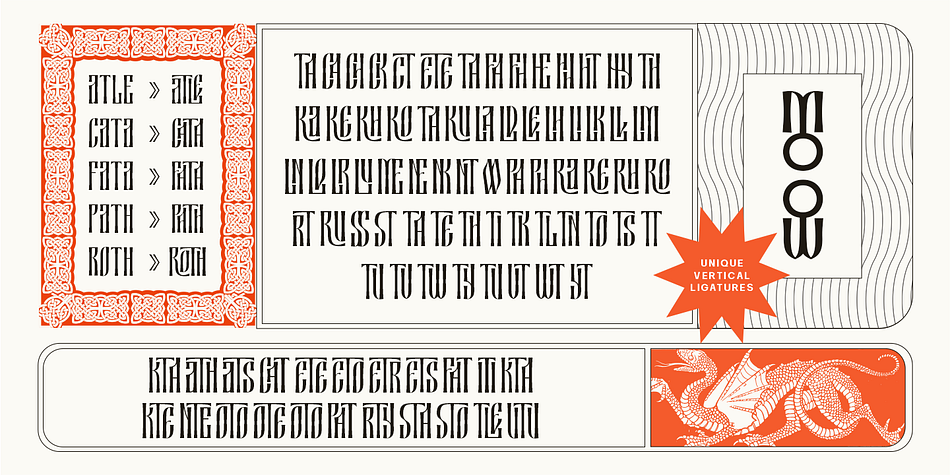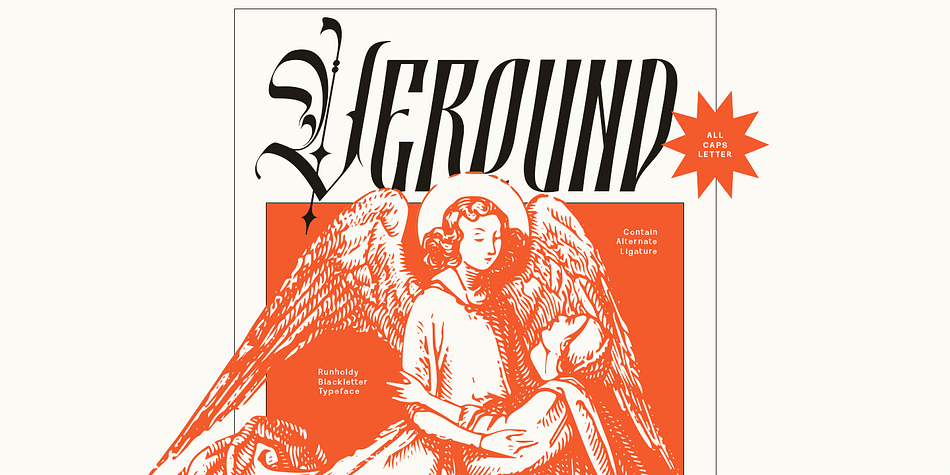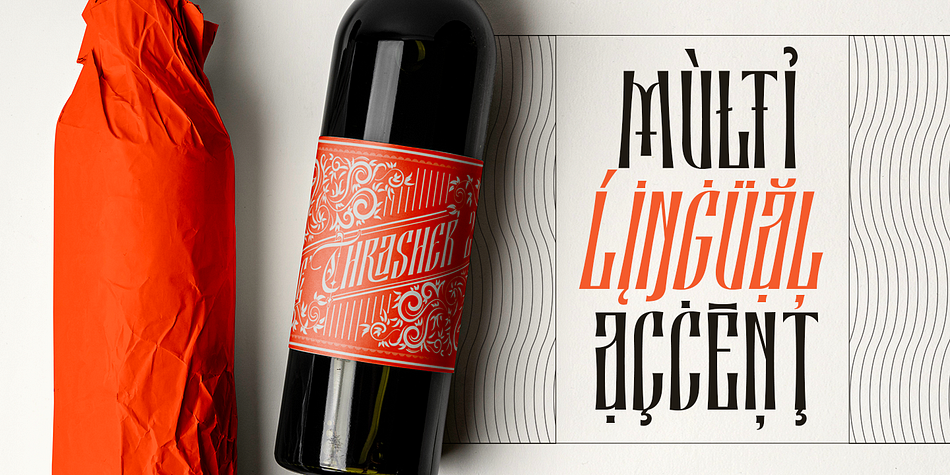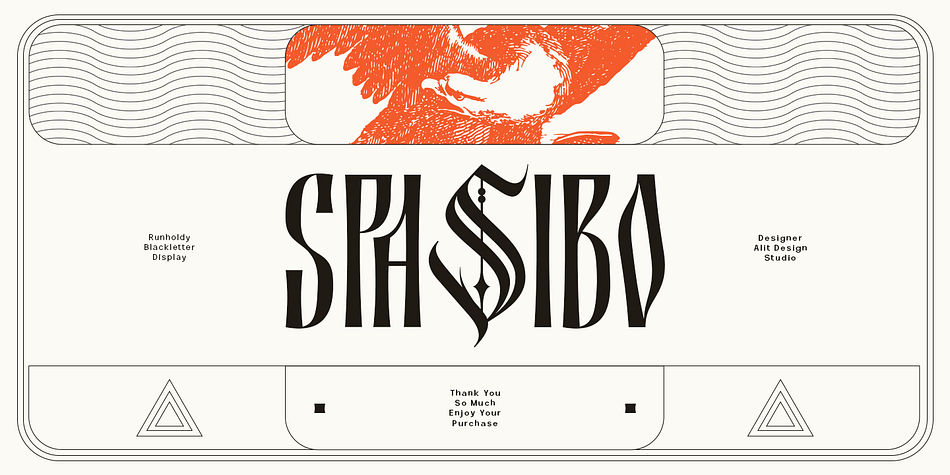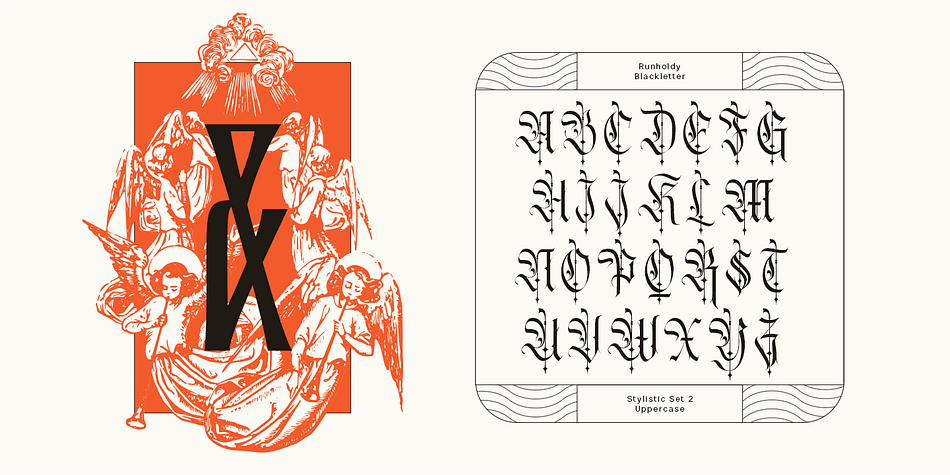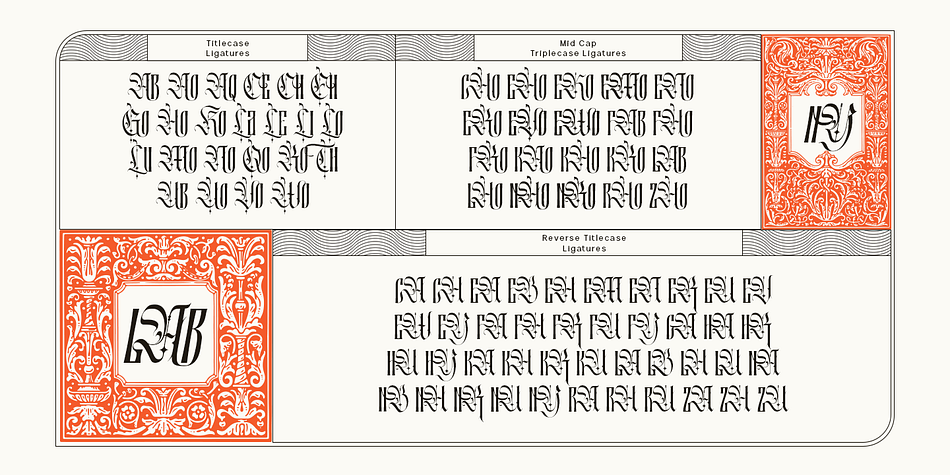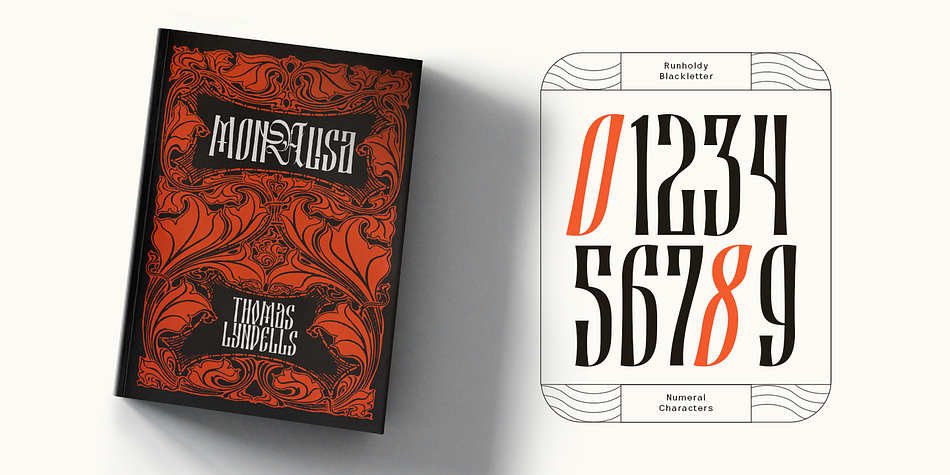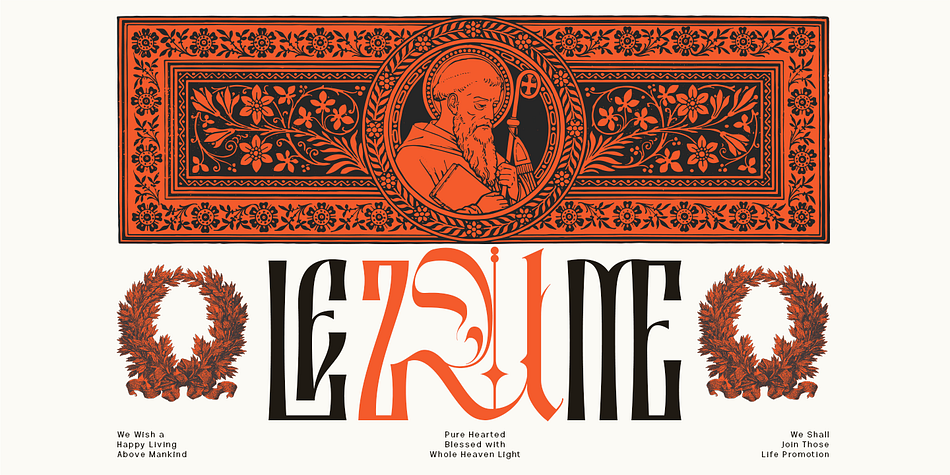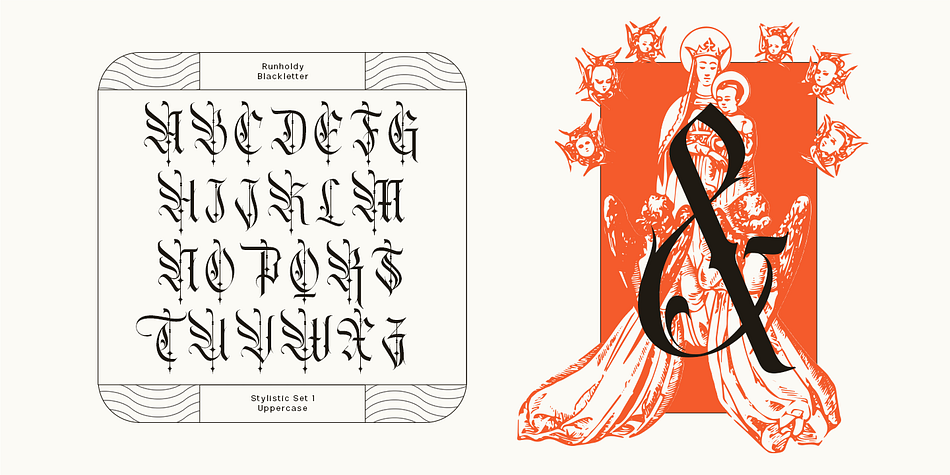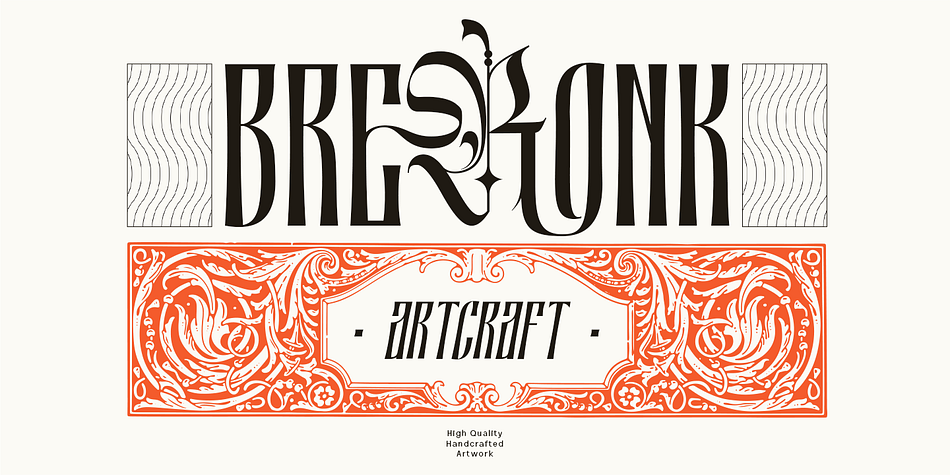
Runholdy
Designed by Alit Suarnegara, Runholdy is a blackletter and display sans font family. This typeface has two styles and was published by Alit Design.
“RUNHOLDY” is a unique font designed with a concept of dark beauty and modern style. The font combines elements of both modern sans serif and blackletter styles, creating a striking and distinctive appearance. With a total of 762 glyph characters, including rare ligatures and swashes, this font is perfect for creating bold and impactful designs.
The font also supports PUA unicode and multilingual characters, making it suitable for use in a variety of languages and settings. Whether you’re designing logos, posters, or other graphics, “RUNHOLDY” is sure to make a lasting impression.
Language Support : Latin, Basic, Western European, Central European, South European,Vietnamese.